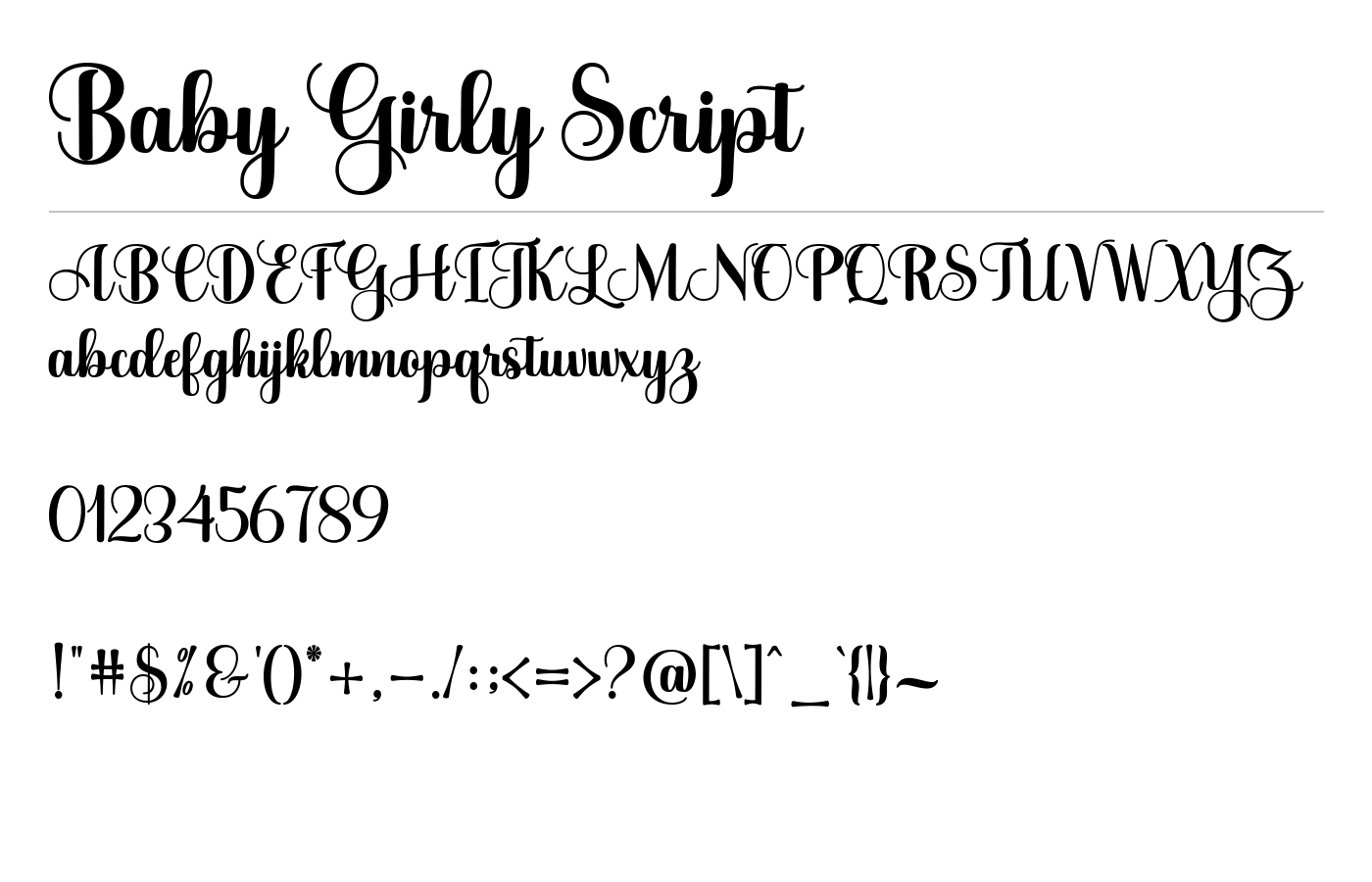
Baby Girly Script is a charming and elegant script font featuring graceful, flowing letterforms with delicate swirls and loops, perfect for creating a playful yet sophisticated look. Its combination of bold strokes and intricate details makes it ideal for feminine branding, invitations, and fashion-related designs where a stylish, whimsical feel is desired. This font shines in decorative uses such as logos, headlines, and packaging, adding a touch of personal flair and elegance.
Baby Girly Script Font
About Baby Girly Script Font